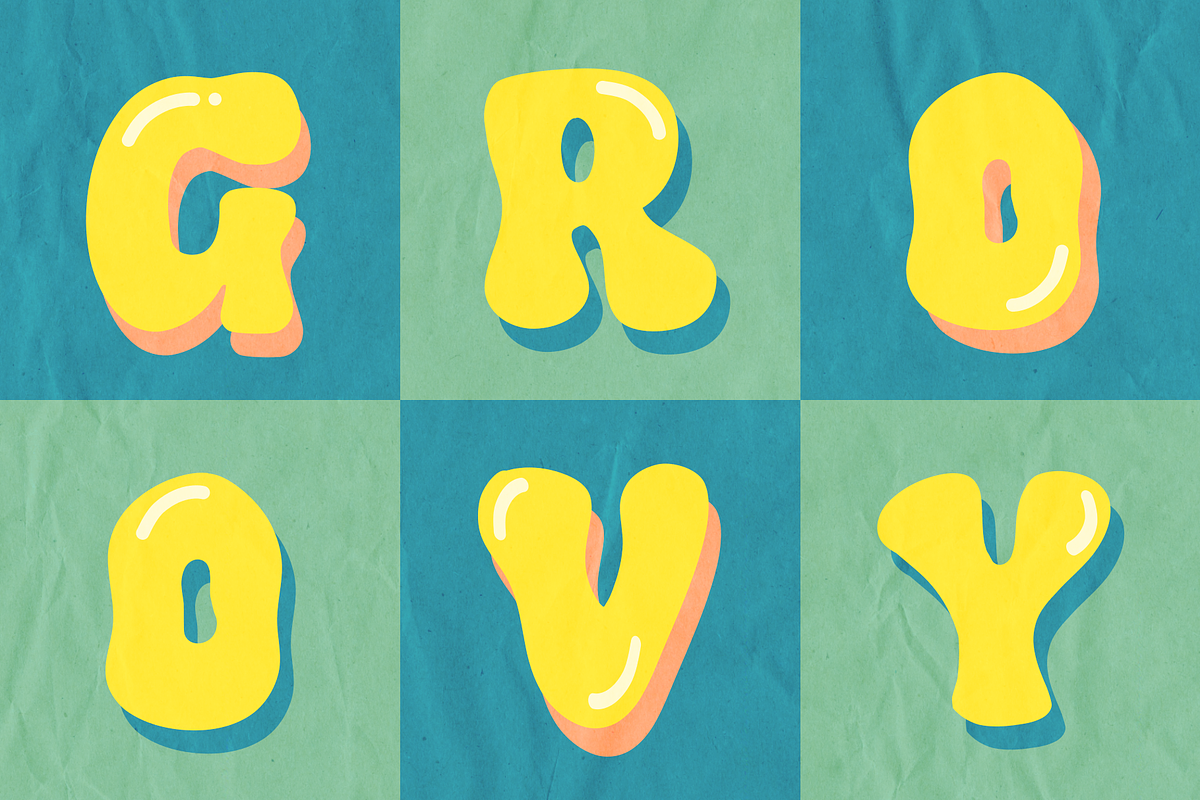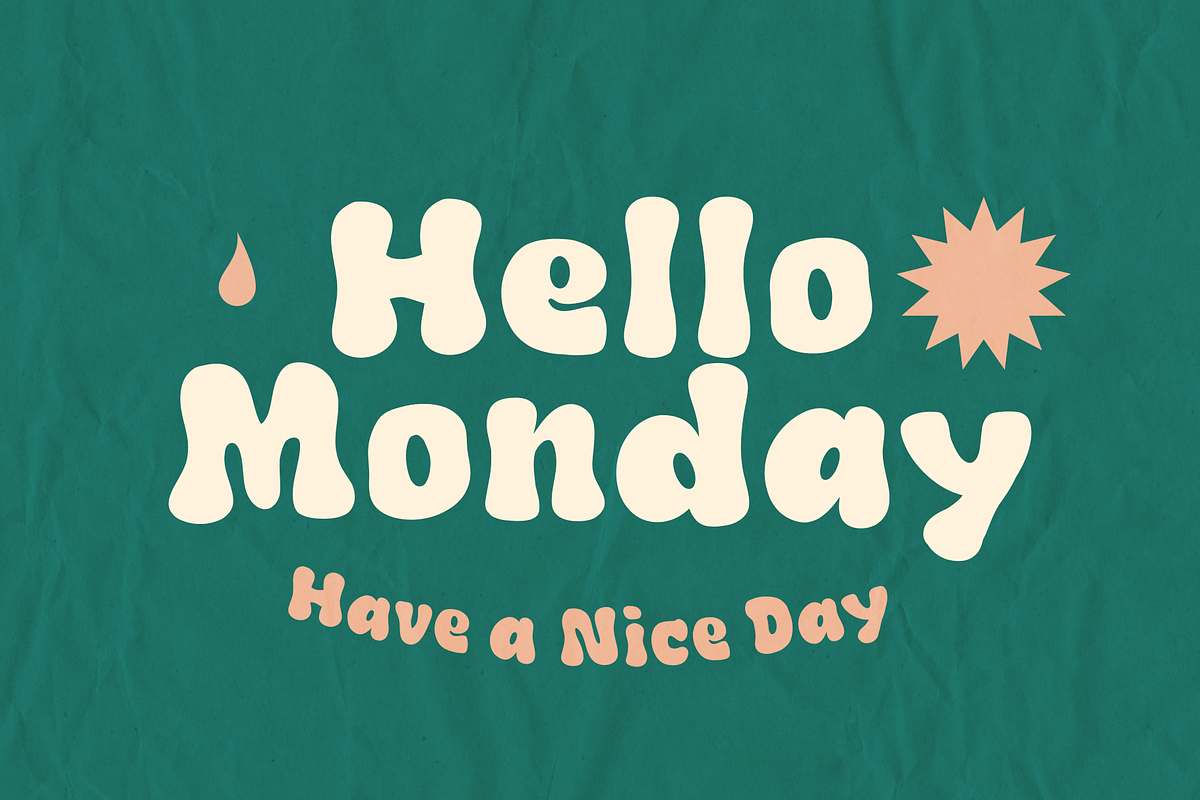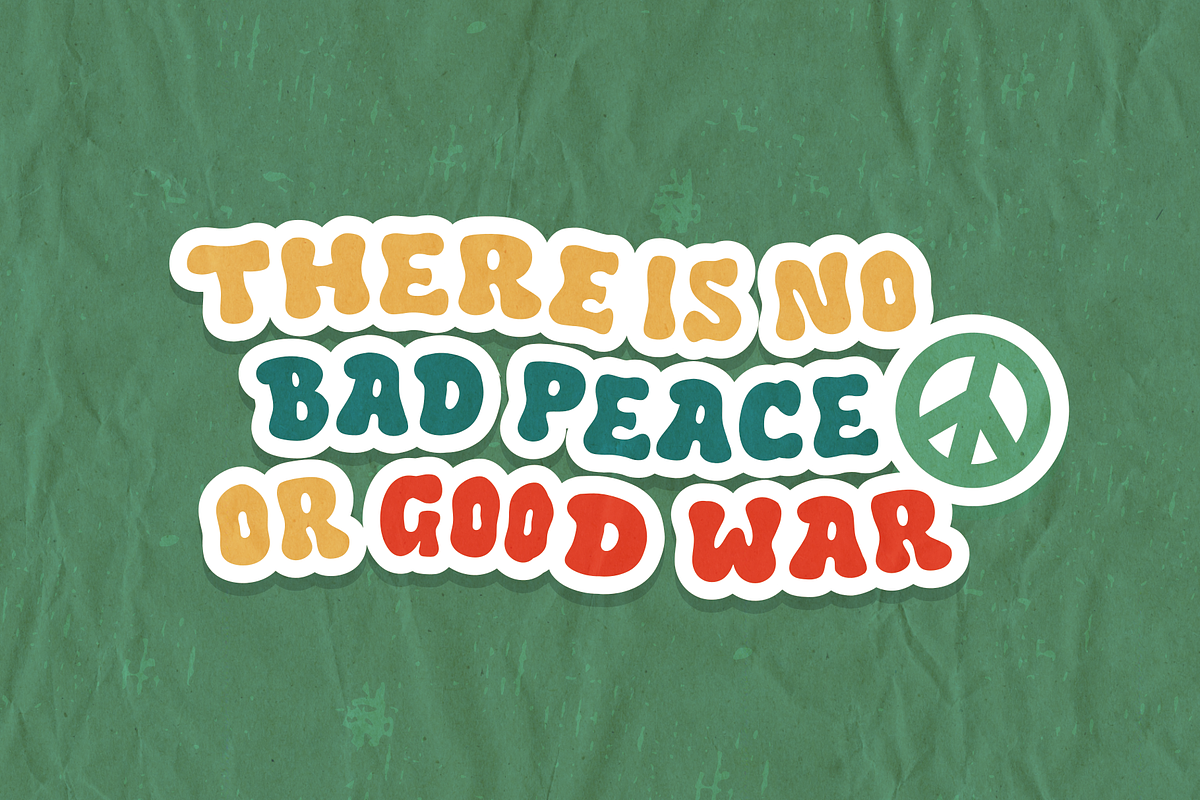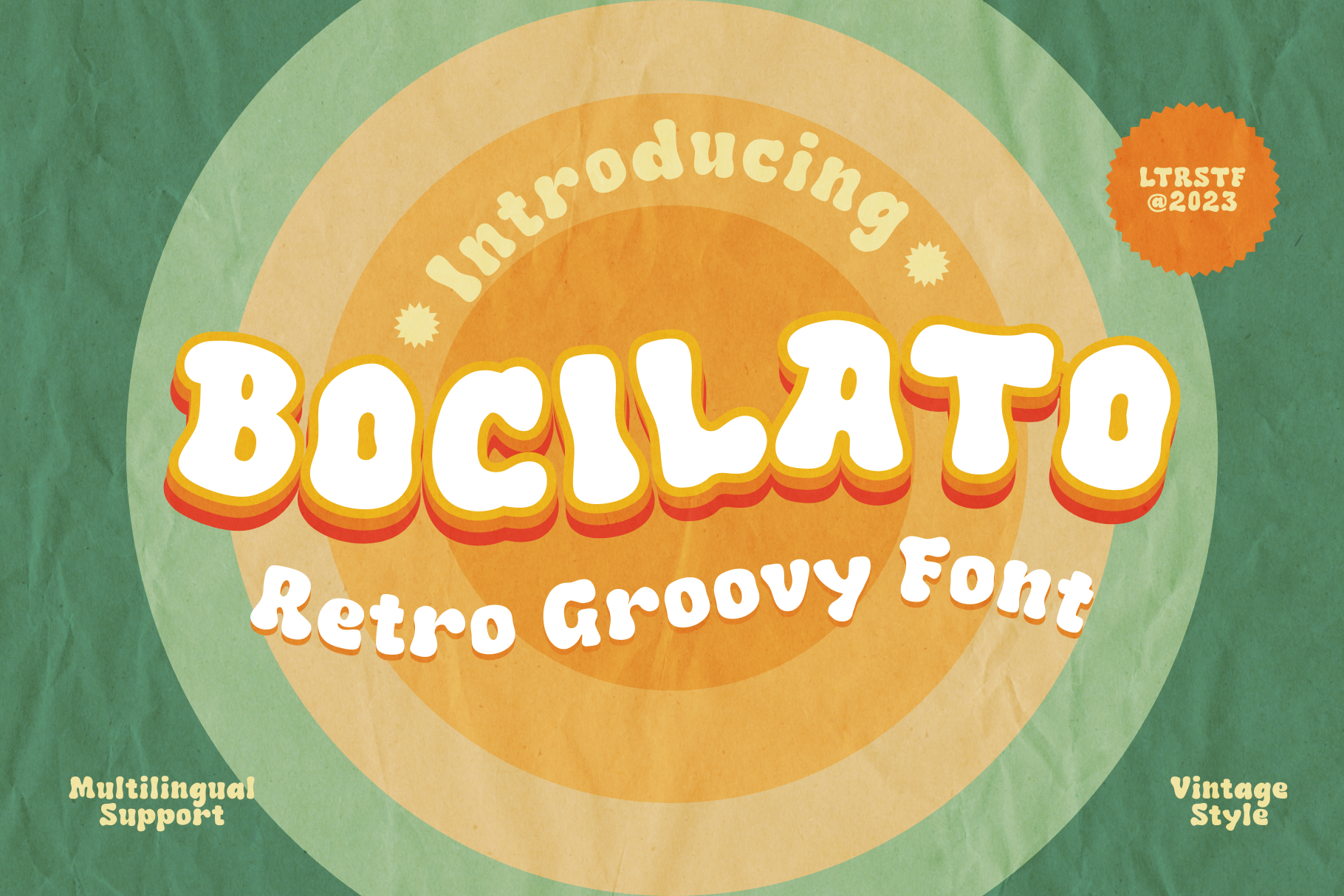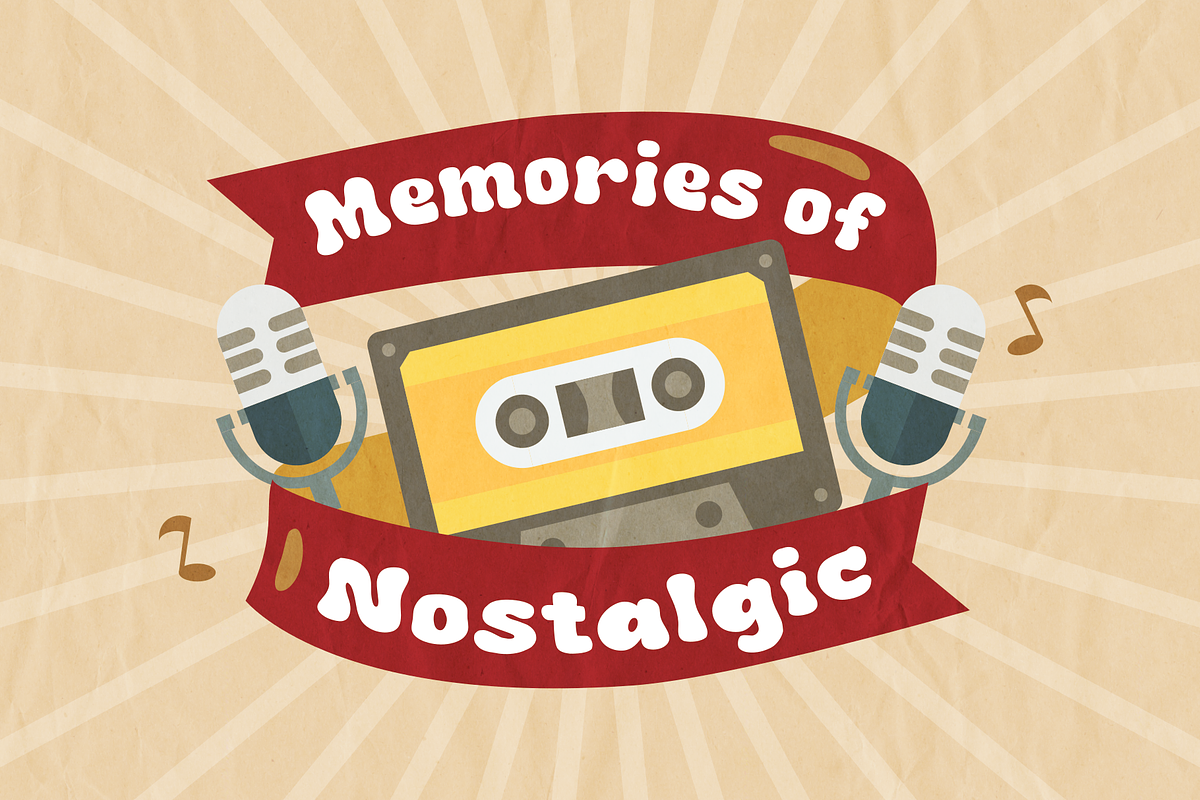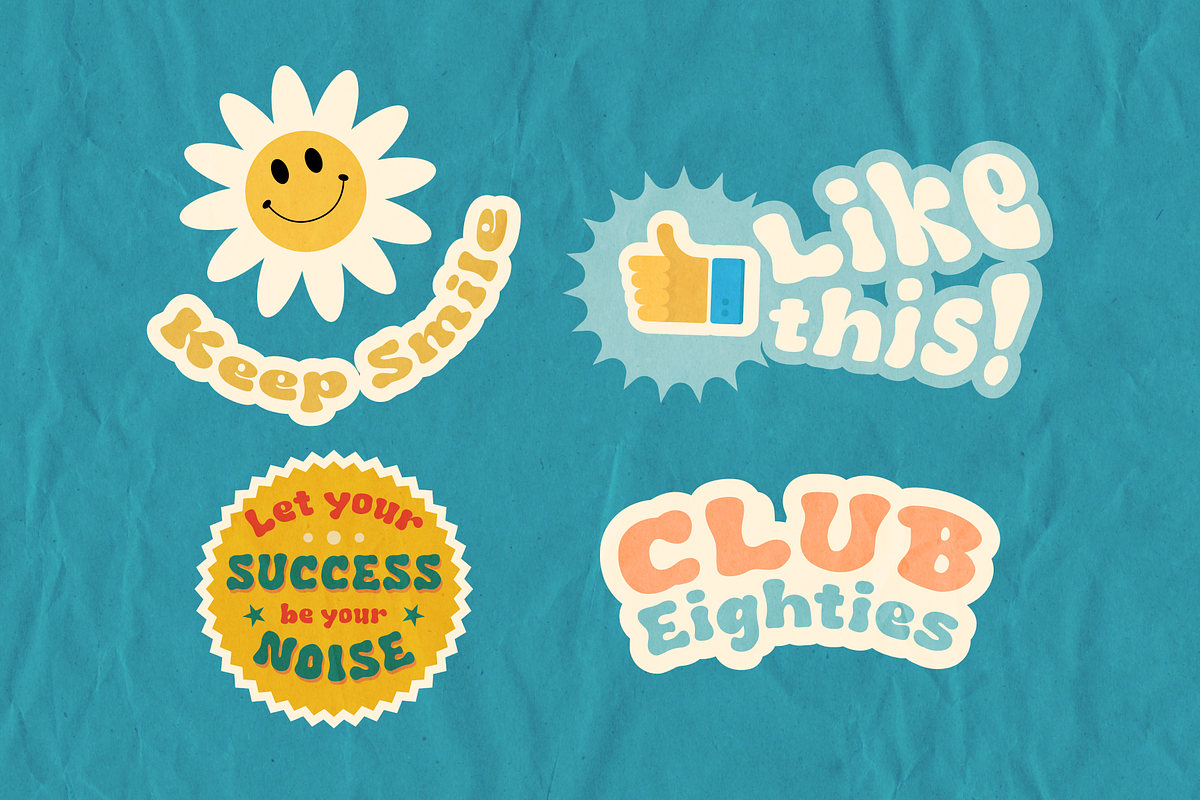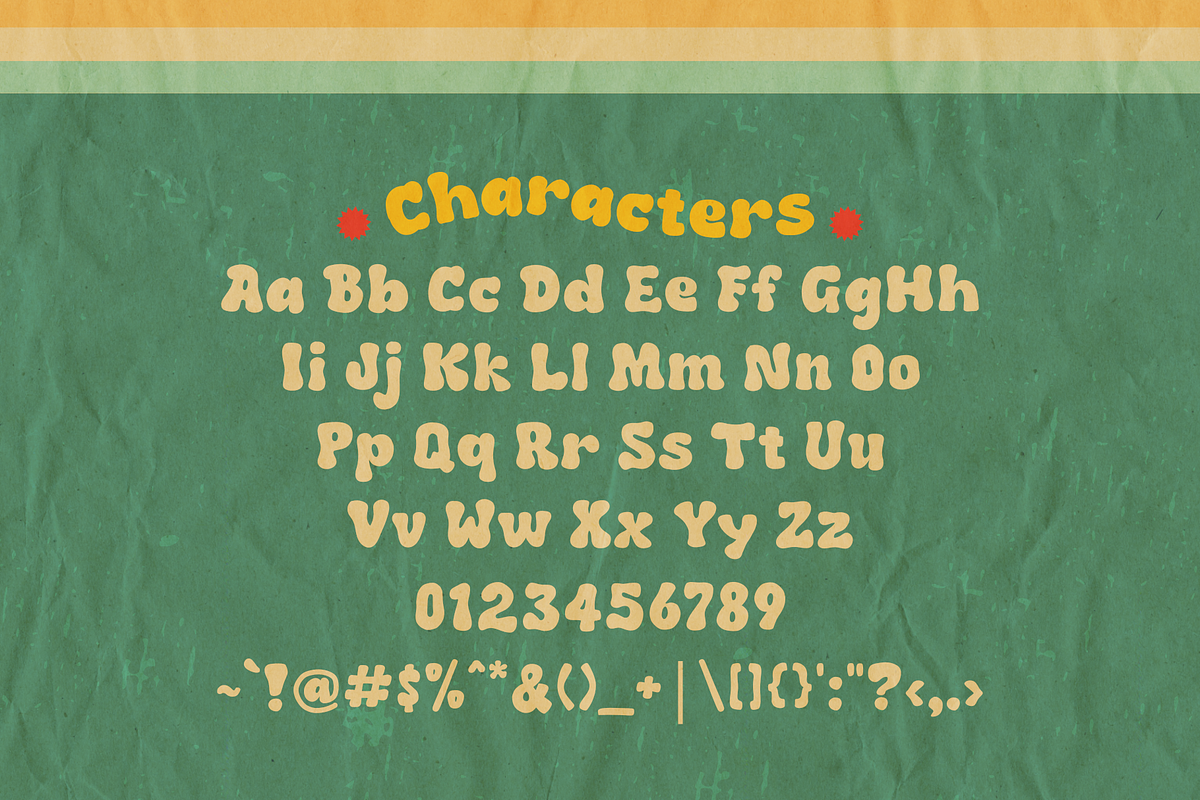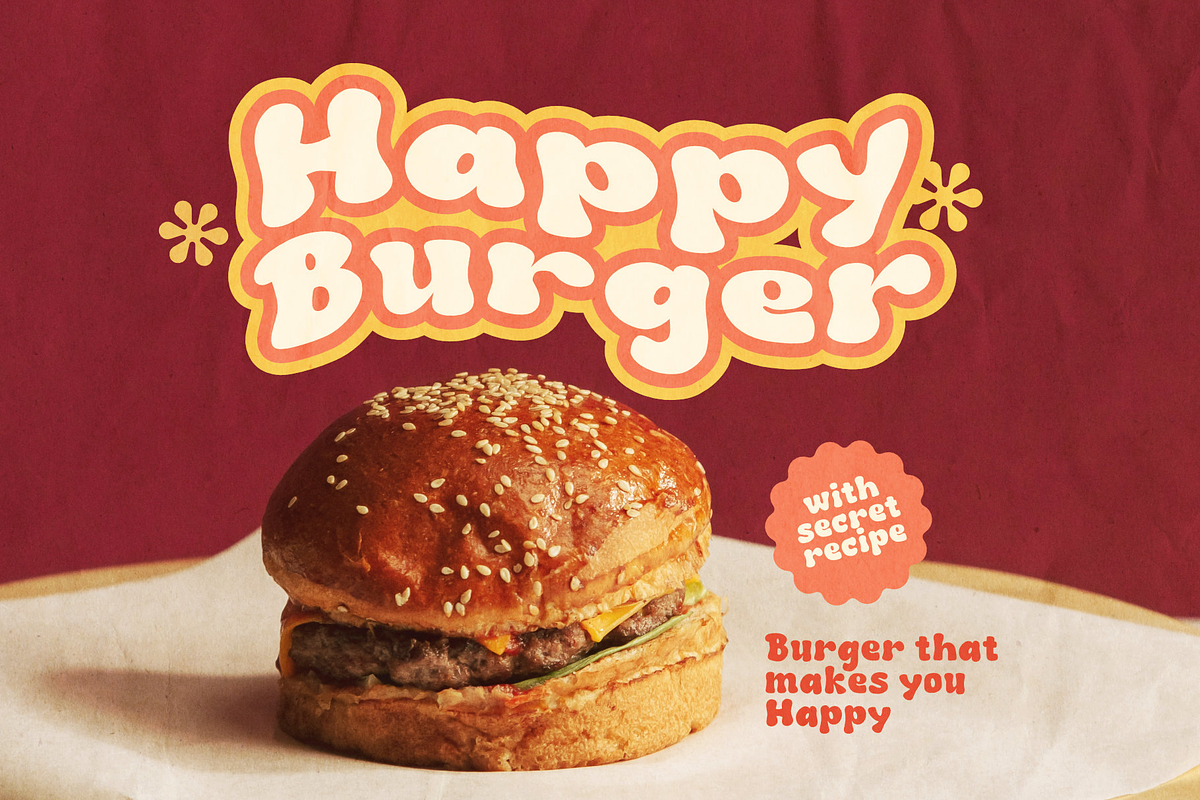
Bocilato - Groovy Font
Bocilato is a playful font inspired by the vintage style. It’s fun for creating vintage designs, retro infographics and logos. Bocilato has been carefully hand-crafted in order to look natural and friendly. It can be used for various purposes such as logo, branding, apparel design or just display text.
- Numerals & punctuation
- More than 200 glyphs